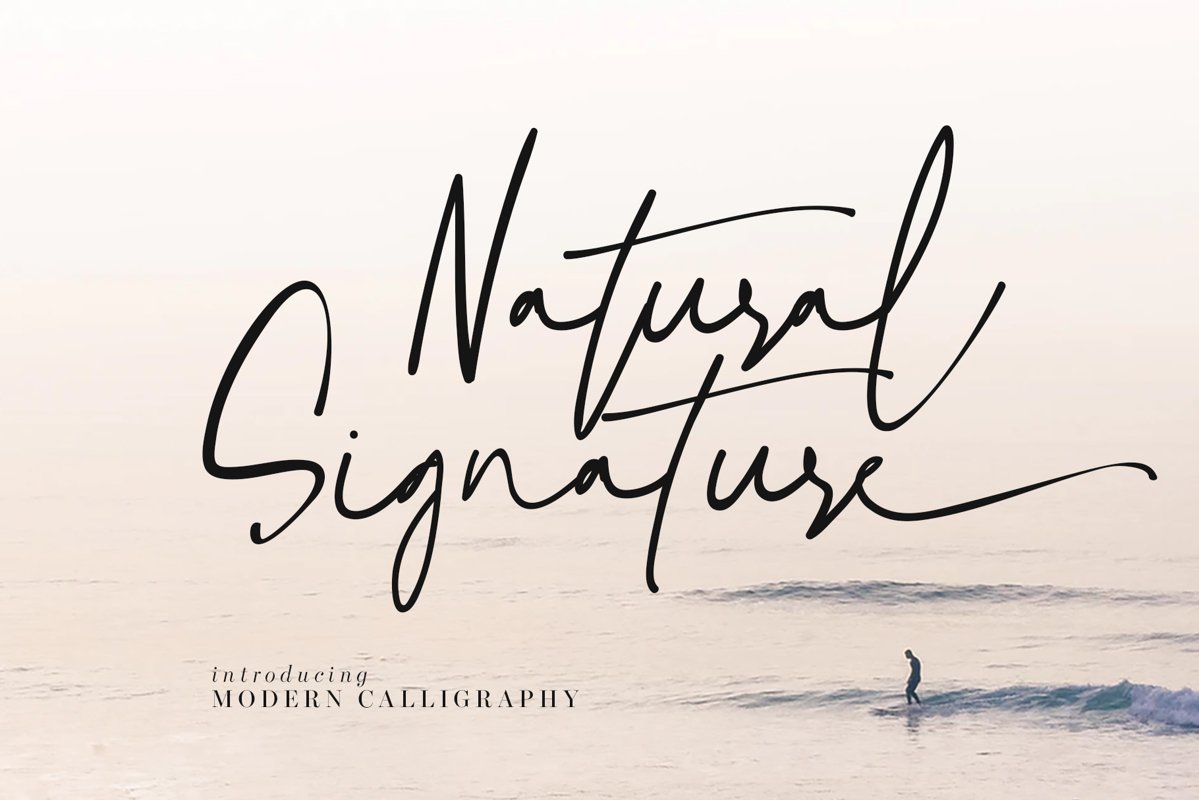
Natural Signature
NaturalSignature
Natural Signature is a handwritten script font with signature natural style, this font is great for your next creative projects such as watermark on photography, quotes, album cover, logo, business card, and many other design project.